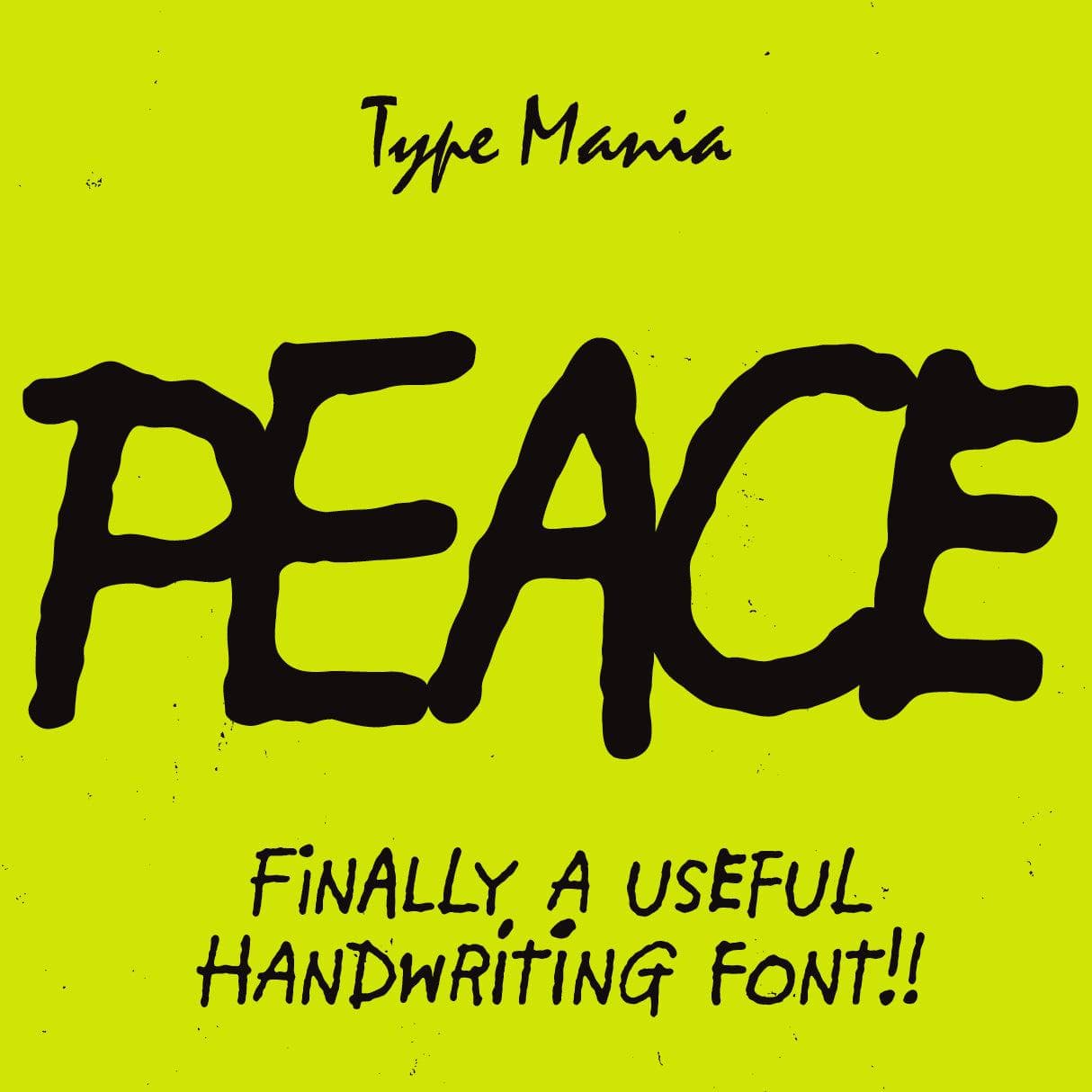
<p>Capture the restless spirit of the 1960s with <strong>Peace TM</strong>, a handwritten typeface inspired by the underground comics of the era. The font is programmed to automatically shift between the stylistic sets, making your layouts dynamic and interesting damn near automatic... Good for graphic designers, artists, and period esthetes, <strong>Peace TM</strong> adds a nice touch any project 👌</p> <p><strong>Zip includes</strong></p> <ul> <li>OTF file</li> <li>TTF file</li> <li>WOFF2 file</li> </ul> <p><strong>OpenType features</strong></p> <ul> <li>2 stylistic sets</li> <li>The font is programmed to automatically shift between the stylistic sets</li> </ul> <p><strong>Languages</strong></p> <ul> <li>Basic Latin</li> <li>Western European</li> <li>Euro</li> <li>Central European</li> <li>Pan African Latin</li> </ul> <p><em>Graphic Design is Easy (with Type Mania)®</em></p>